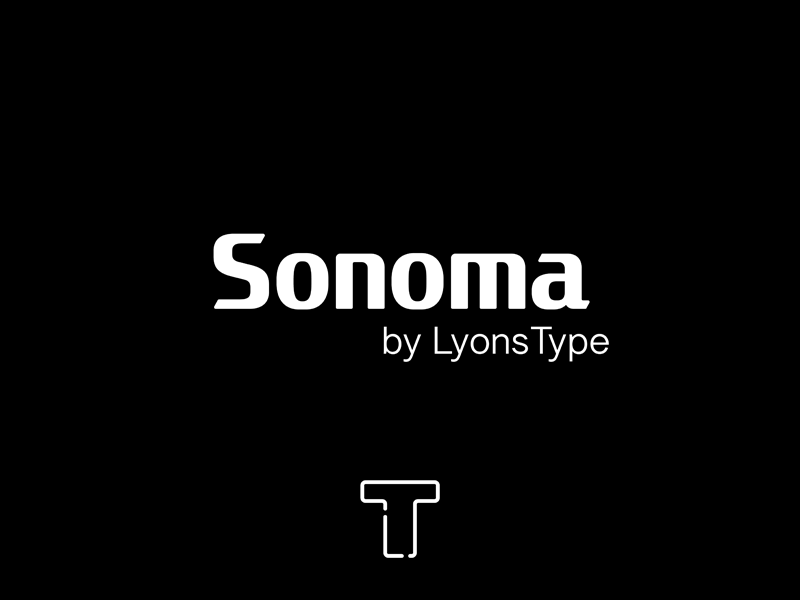
Font name: | LT Sonoma |
Author: | LyonsType |
A unique typeface inspired by one of the wordmarks of one of Sony's products, also named after the latest version of the macOS. Any questions? Contact me at lyonstype@pm.me |